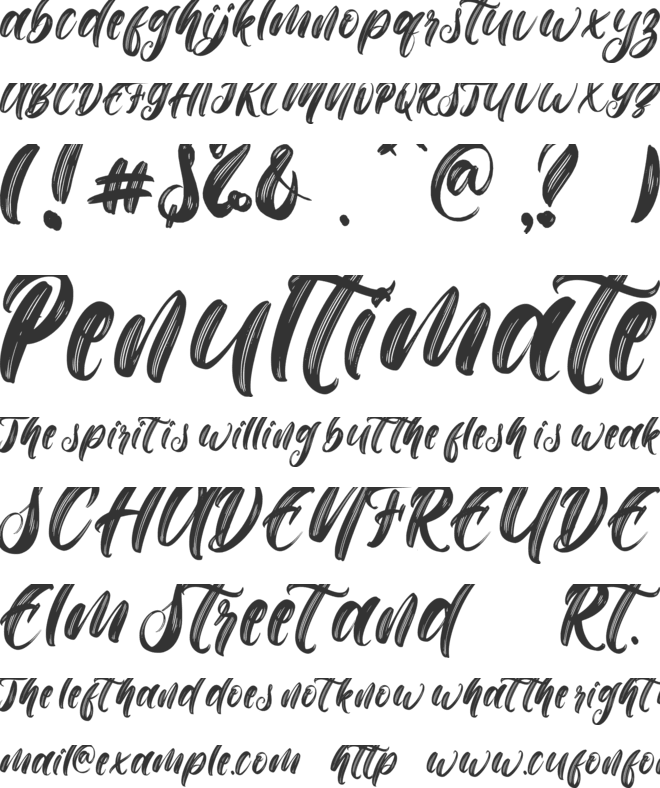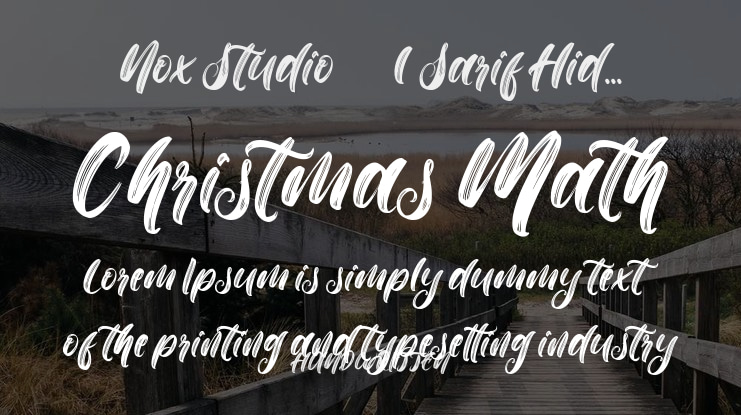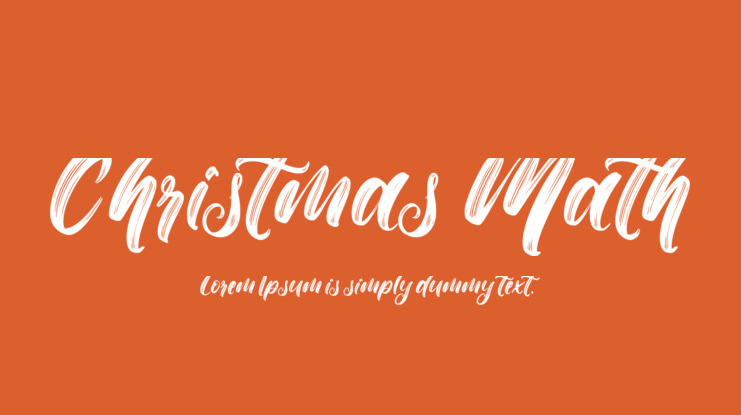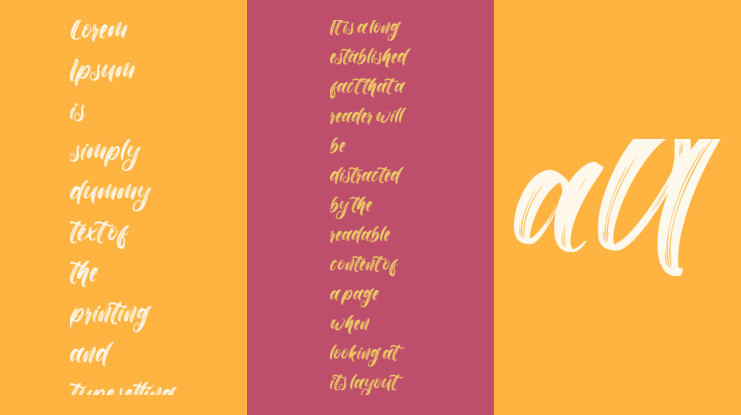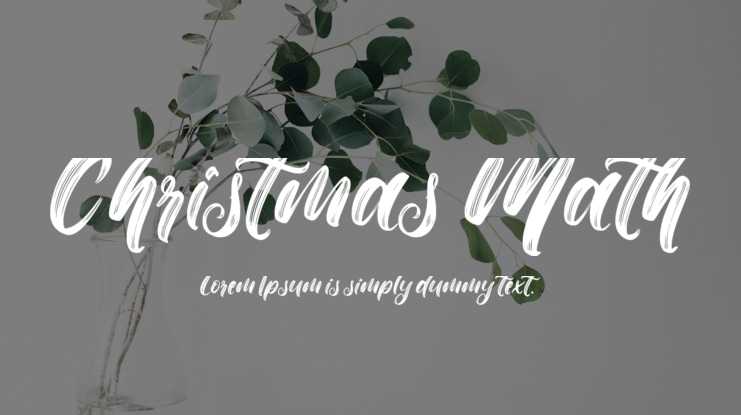
Christmas Math Font
Christmas Math is a cute, unique, and friendly script font. It has a modern yet whimsical style and will undoubtedly immerse your designs into a magical world. This font is perfect for various Christmas and New Year design purposes.